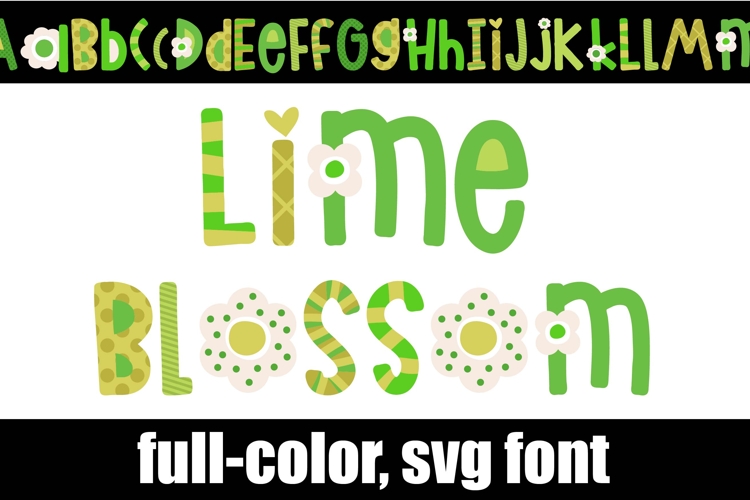
Lime Blossom Color Font
This hand-crafted font is a full-color font featuring limes and lime blossoms. There is an alt case of each letter with a different color combination.